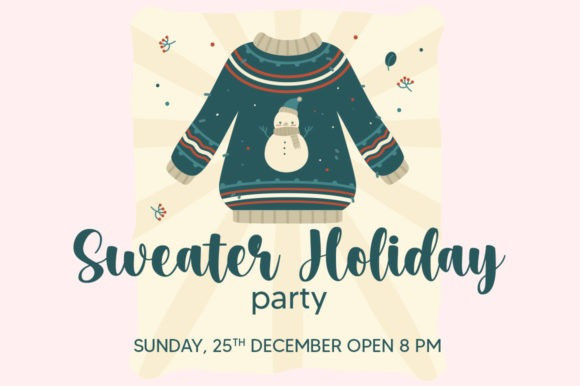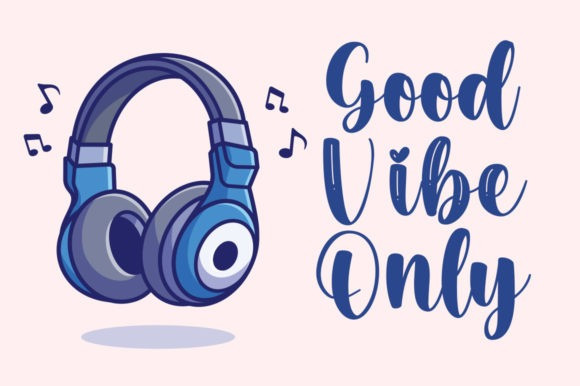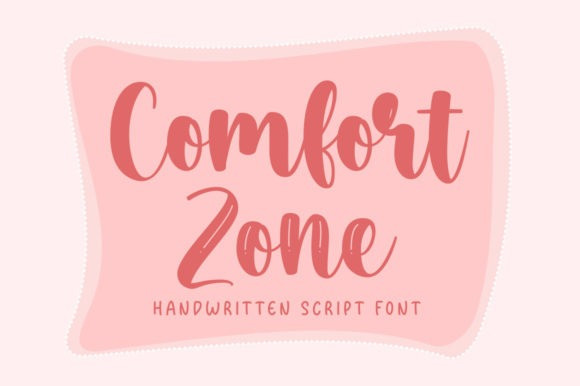
Comfort Zone Font
Comfort Zone Script Font is a magical handwritten font. It looks ravishing on invitations, thank you cards, quotes, greeting cards, logos, business cards and every other design which needs a customized touch.